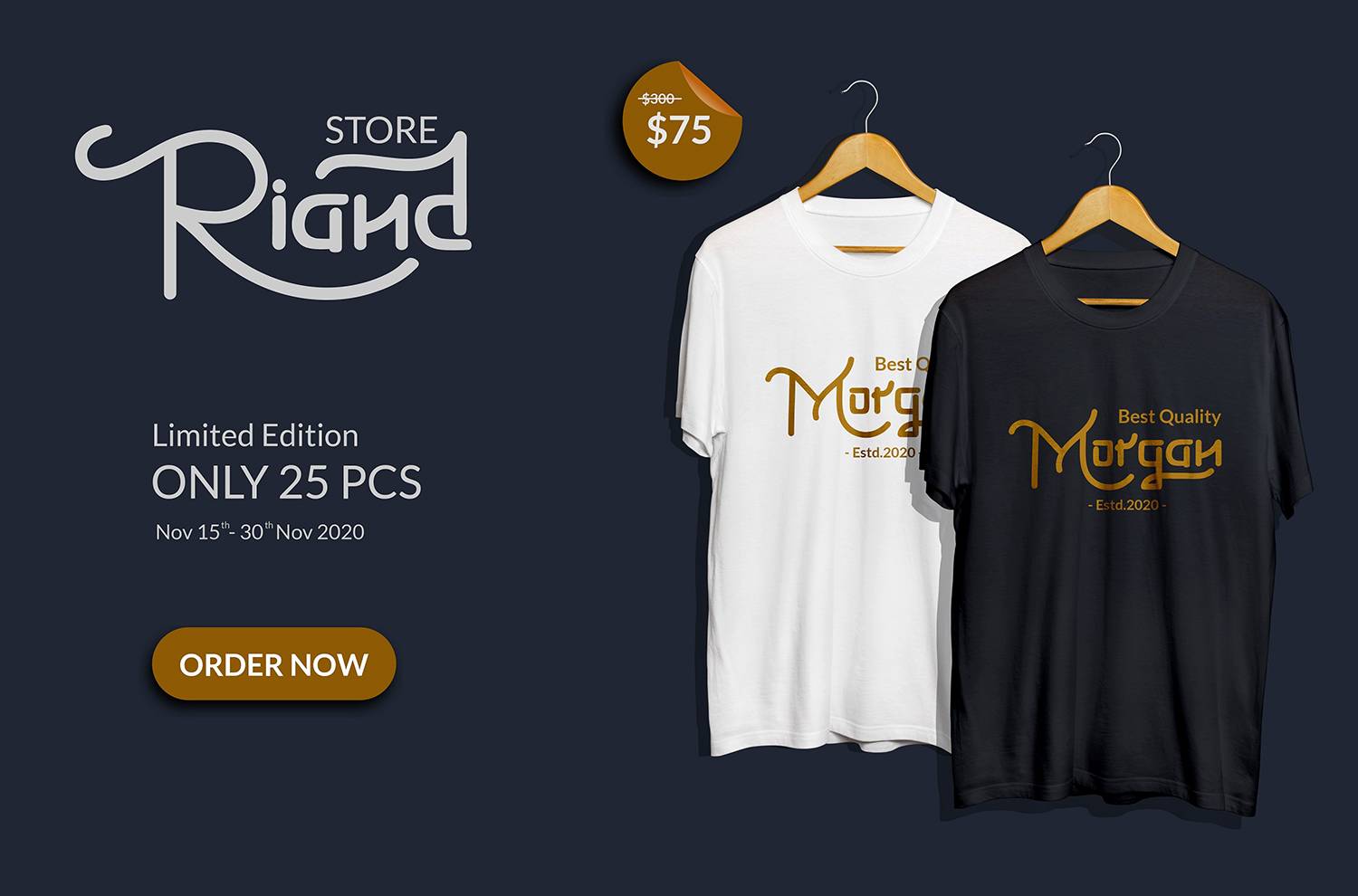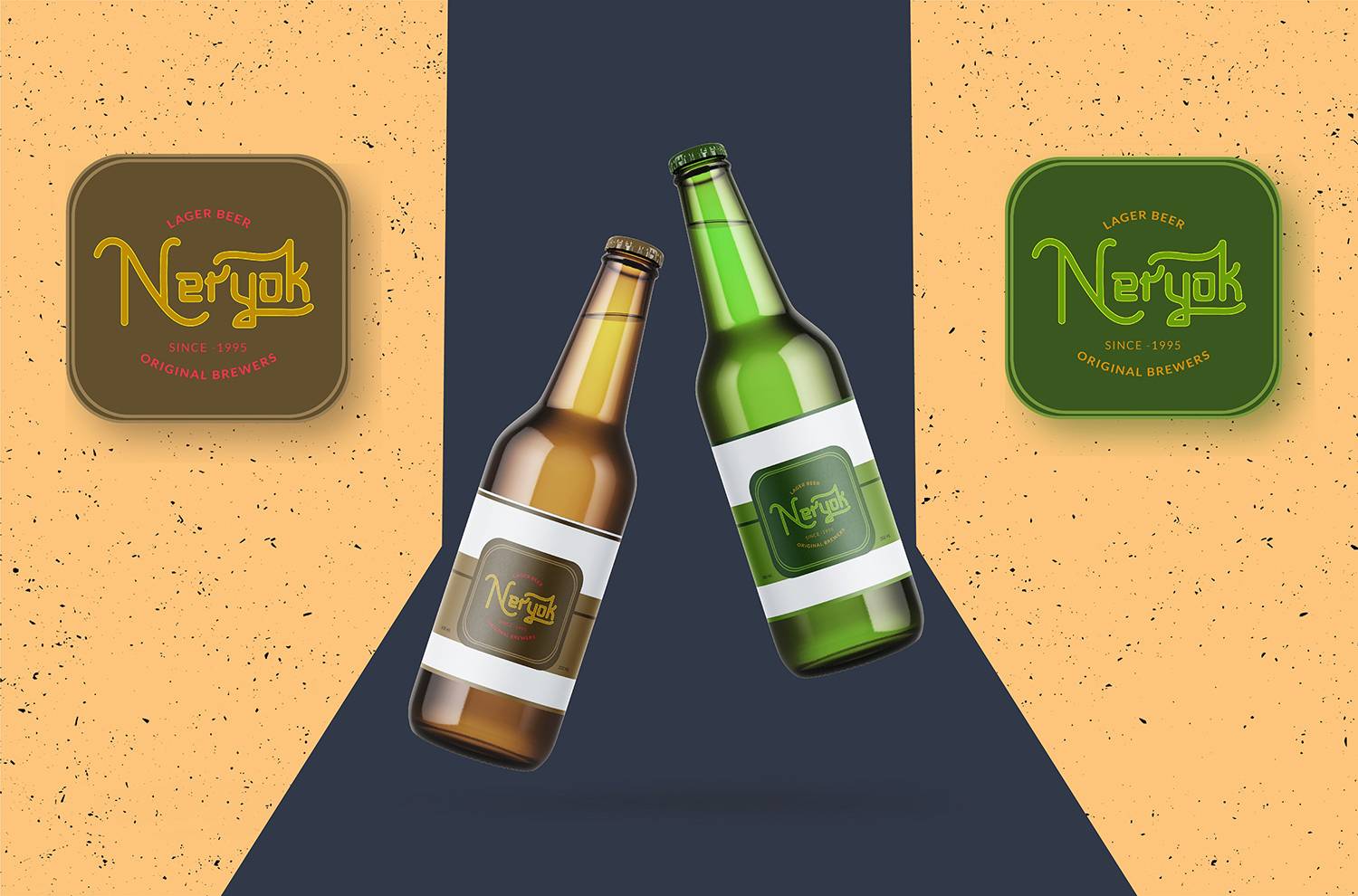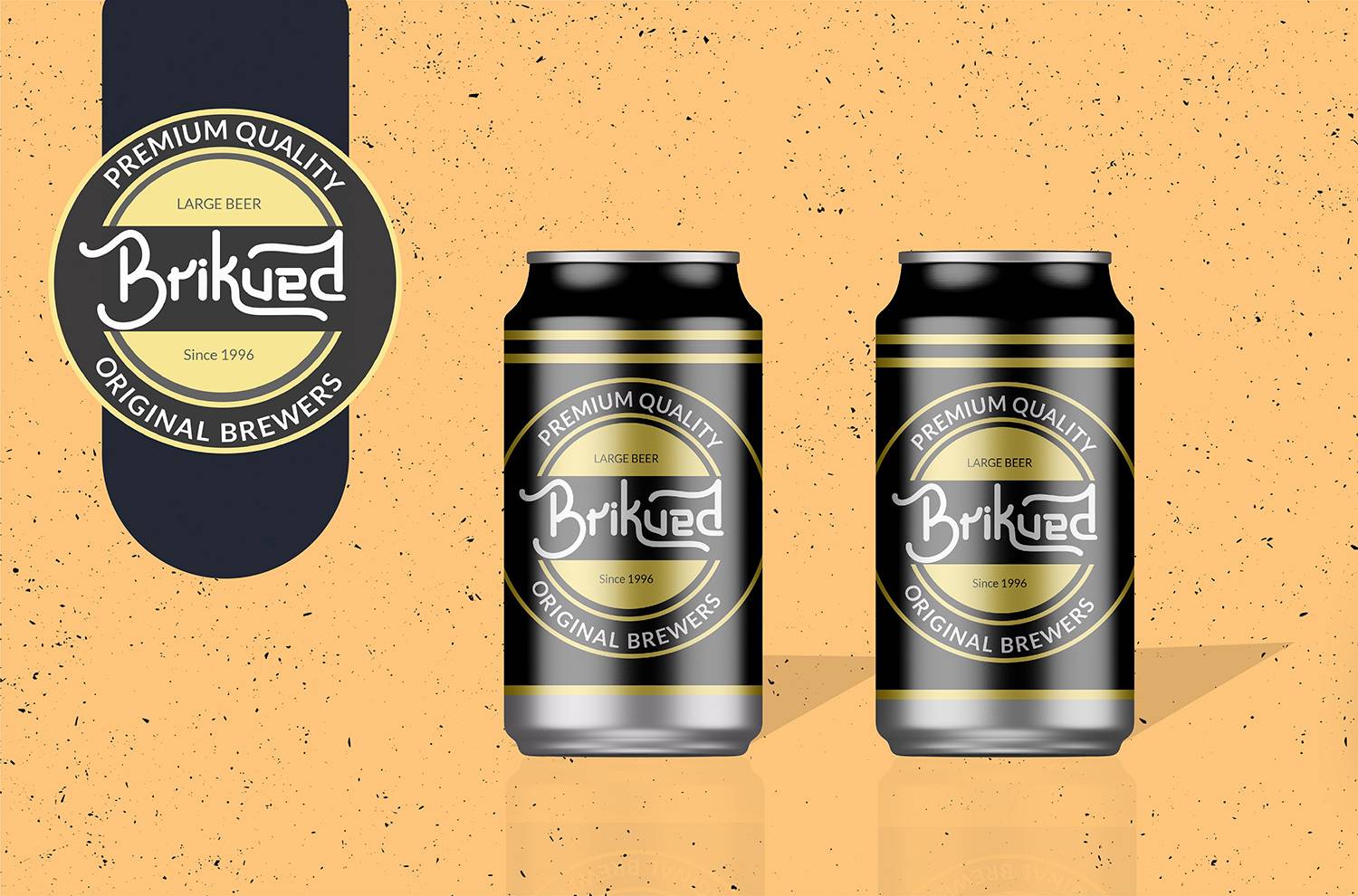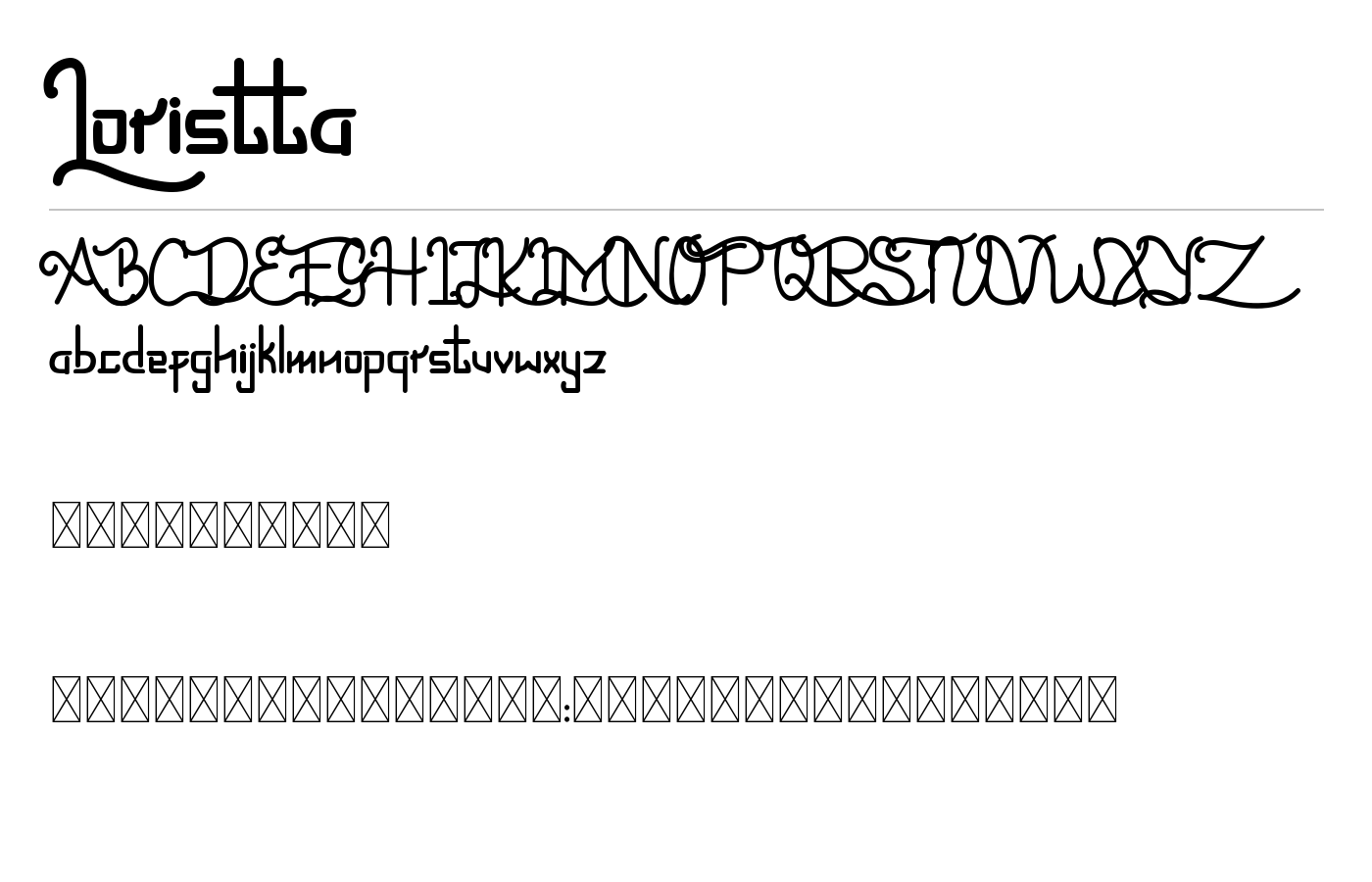
Loristta is a distinctive decorative font that combines playful, curly uppercase letters with more structured, geometric lowercase forms. Its unique blend of whimsical loops and clean lines gives it an artistic yet readable charm, making it perfect for creative branding, invitations, and eye-catching headlines where personality and elegance are desired. This font adds a handcrafted, stylish flair that suits projects needing a touch of individual character and visual interest.
Loristta Font
About Loristta Font